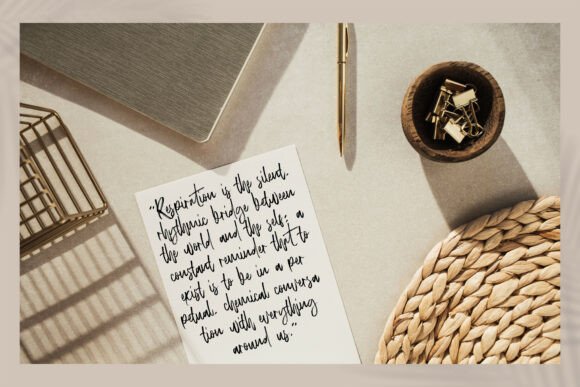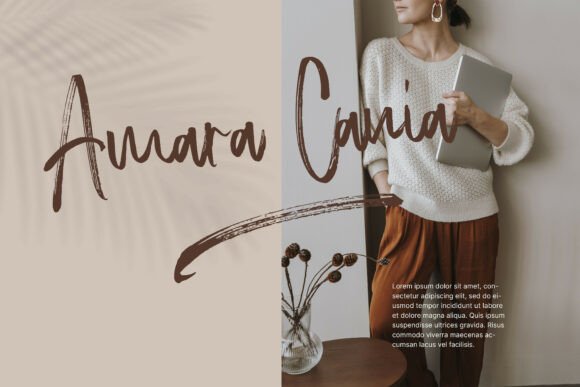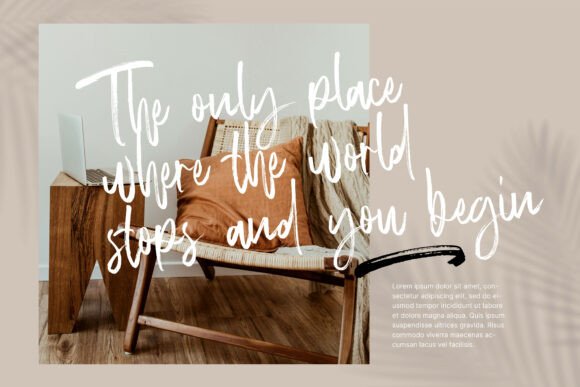
Introduction to Respiration Font
Respiration Brush handmade It comes with a signature and unique style that is perfect for making any design stand out.
This font is perfect for branding, wedding invitations, magazines, mugs, business cards, quotes, posters and more Help File Respiration Type Features: Uppercase – Lowercase Numbers & Punctuation Perfect for Headlines, Logotypes, Signs, Posters, Letterheads, T-Shirts and more.
Key Features of Respiration Font
Why Choose Respiration Font?
Respiration Font offers exceptional quality and versatility, making it a valuable addition to your design toolkit. Whether you’re creating for personal projects or commercial use, Respiration Font delivers professional results.